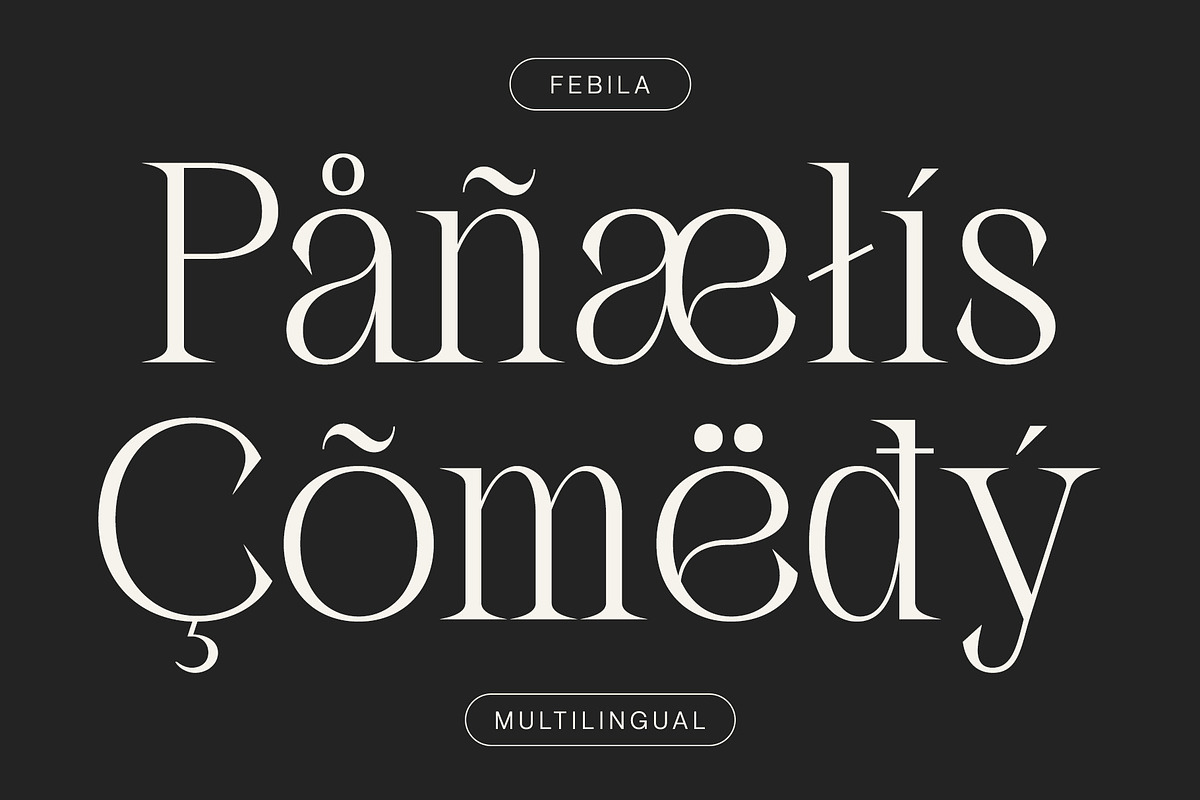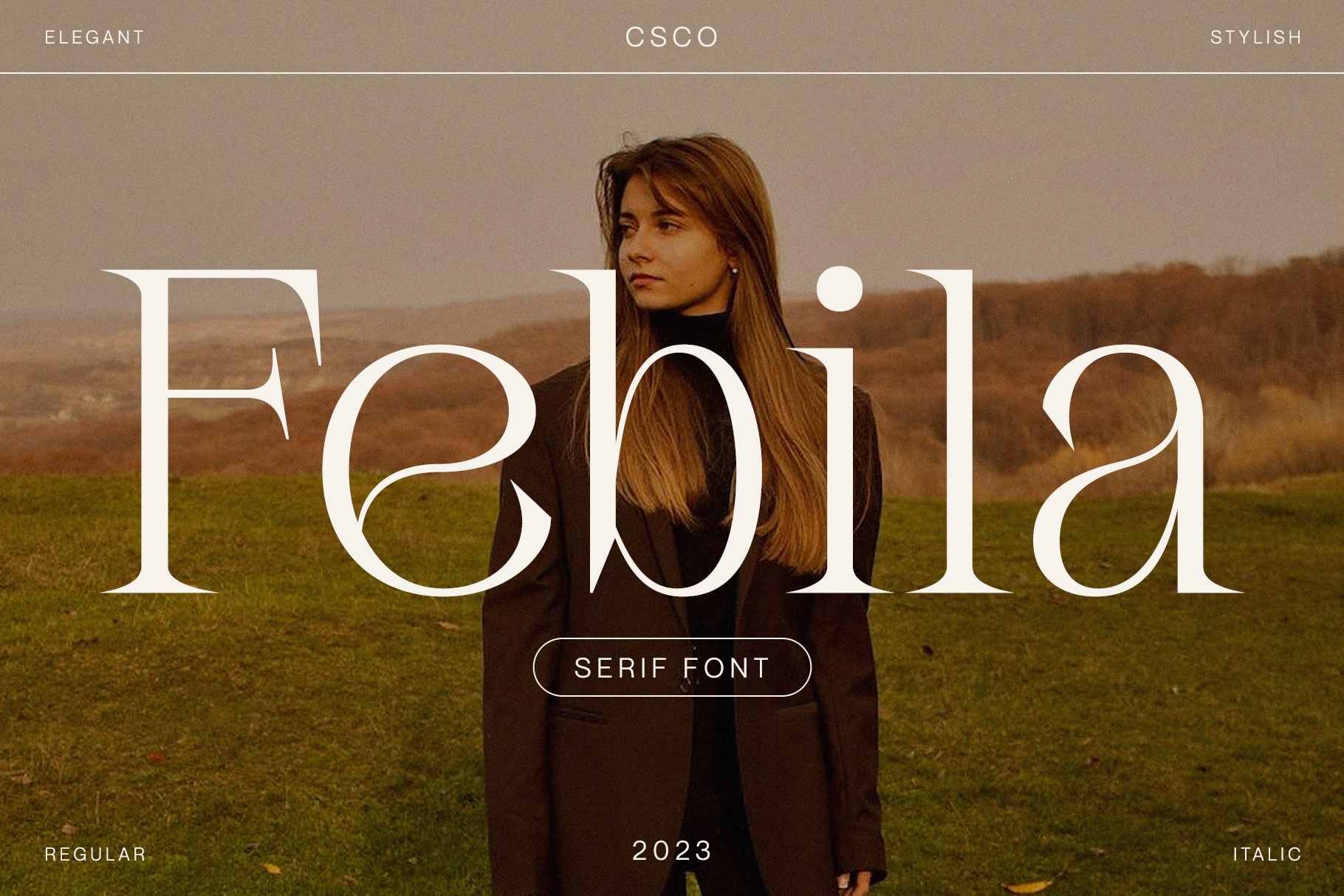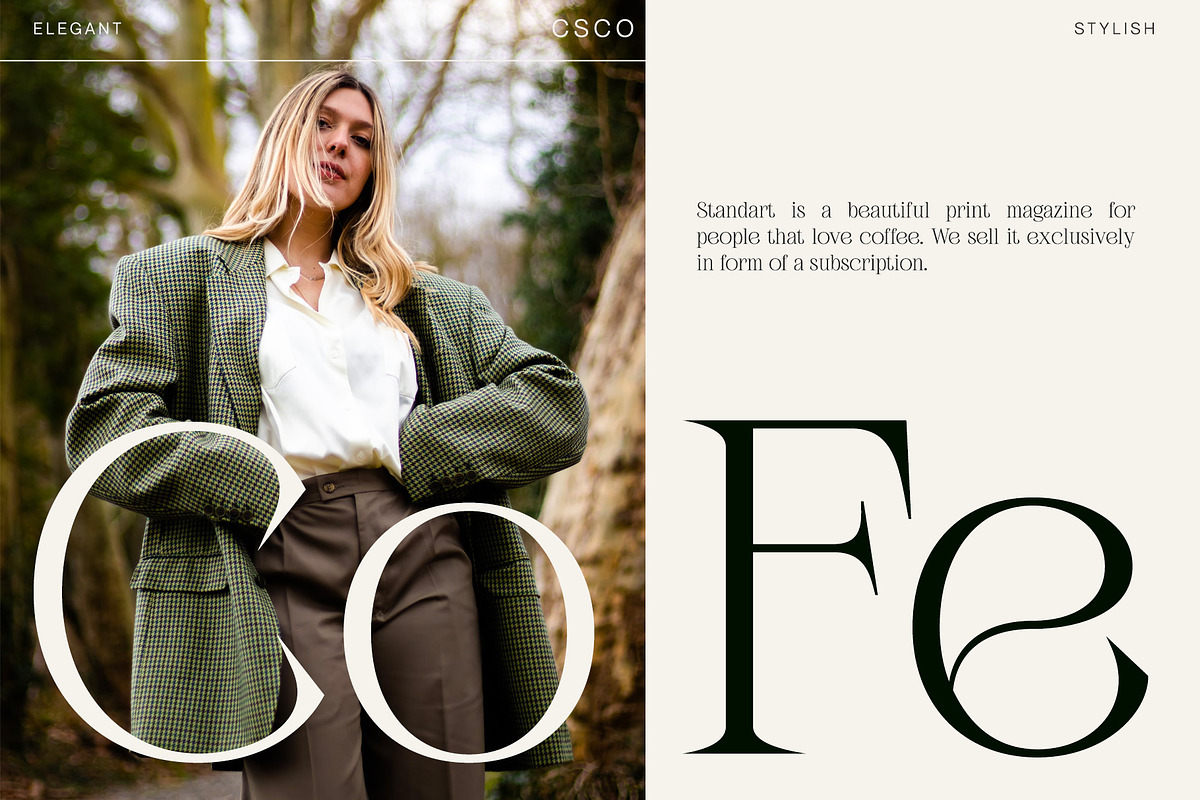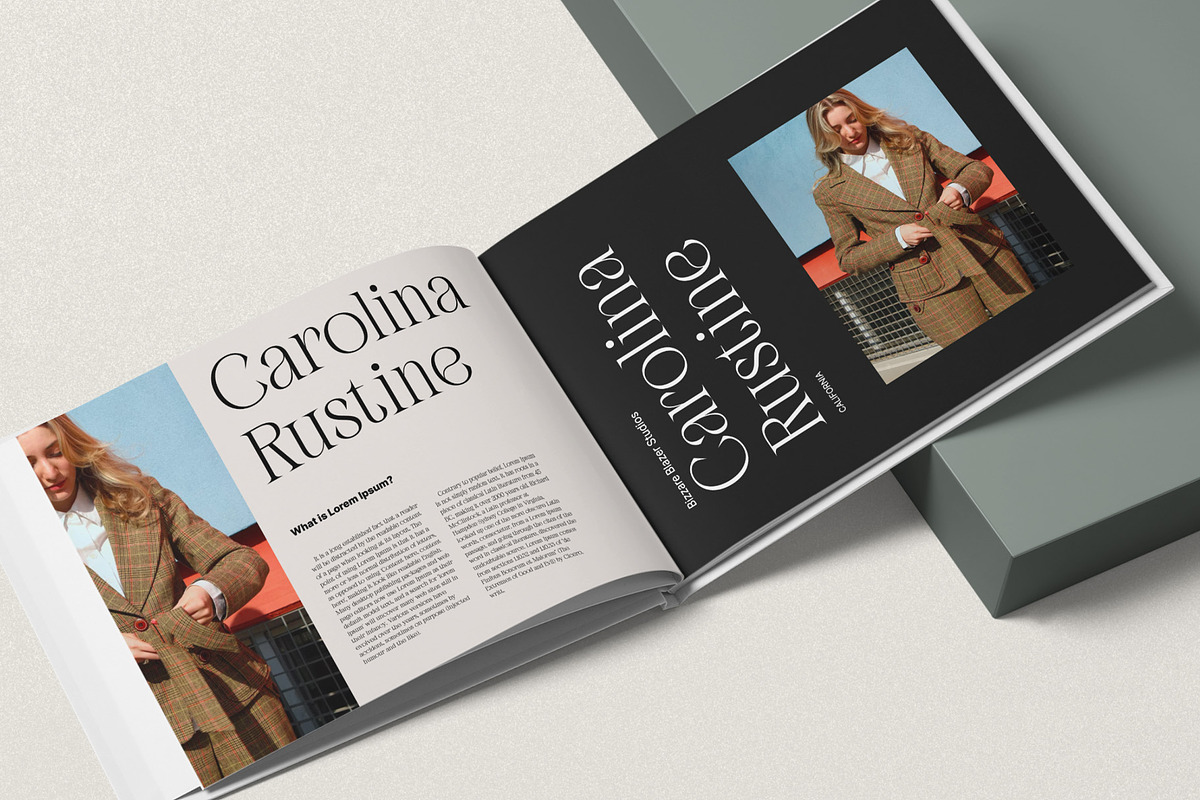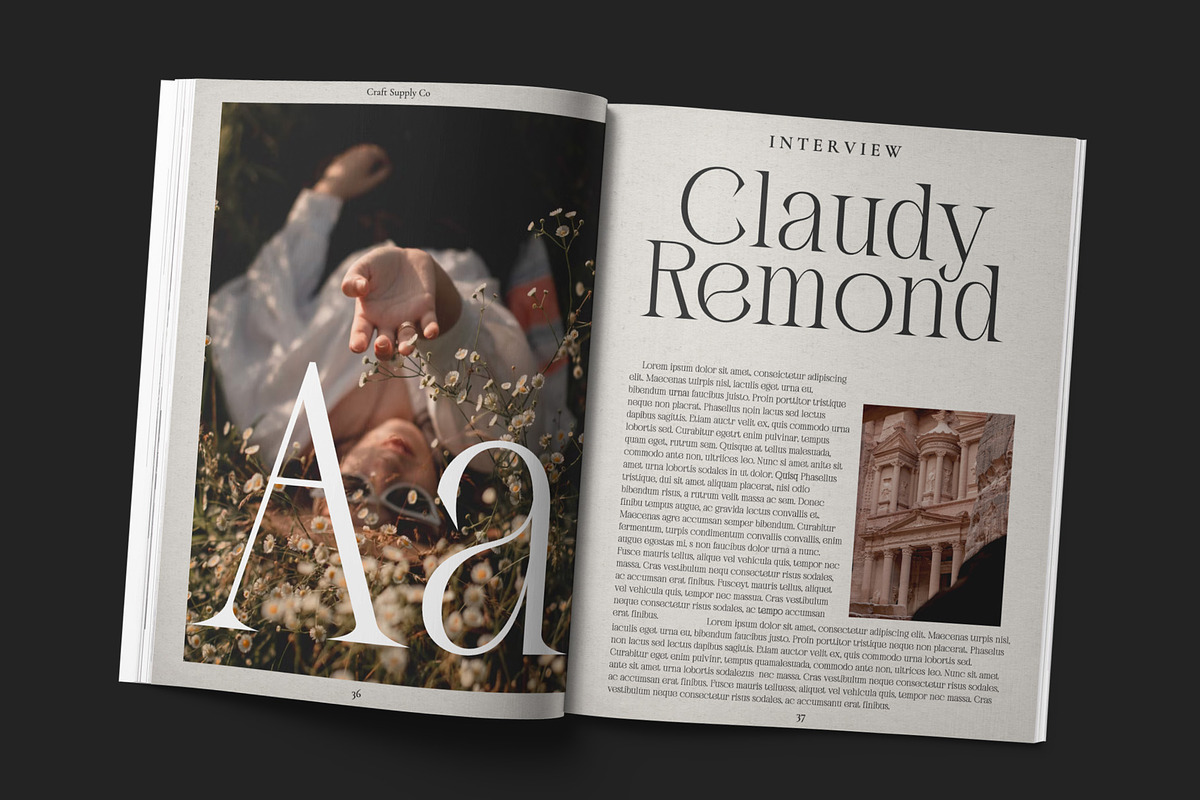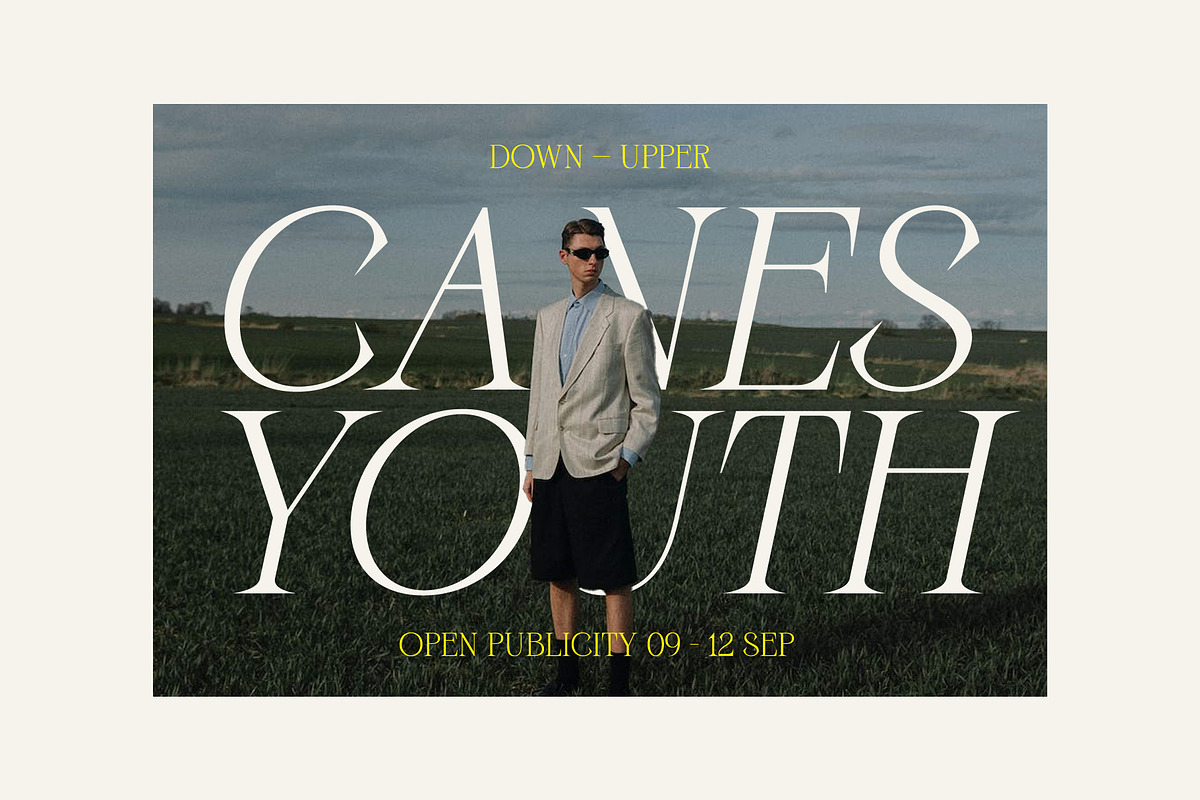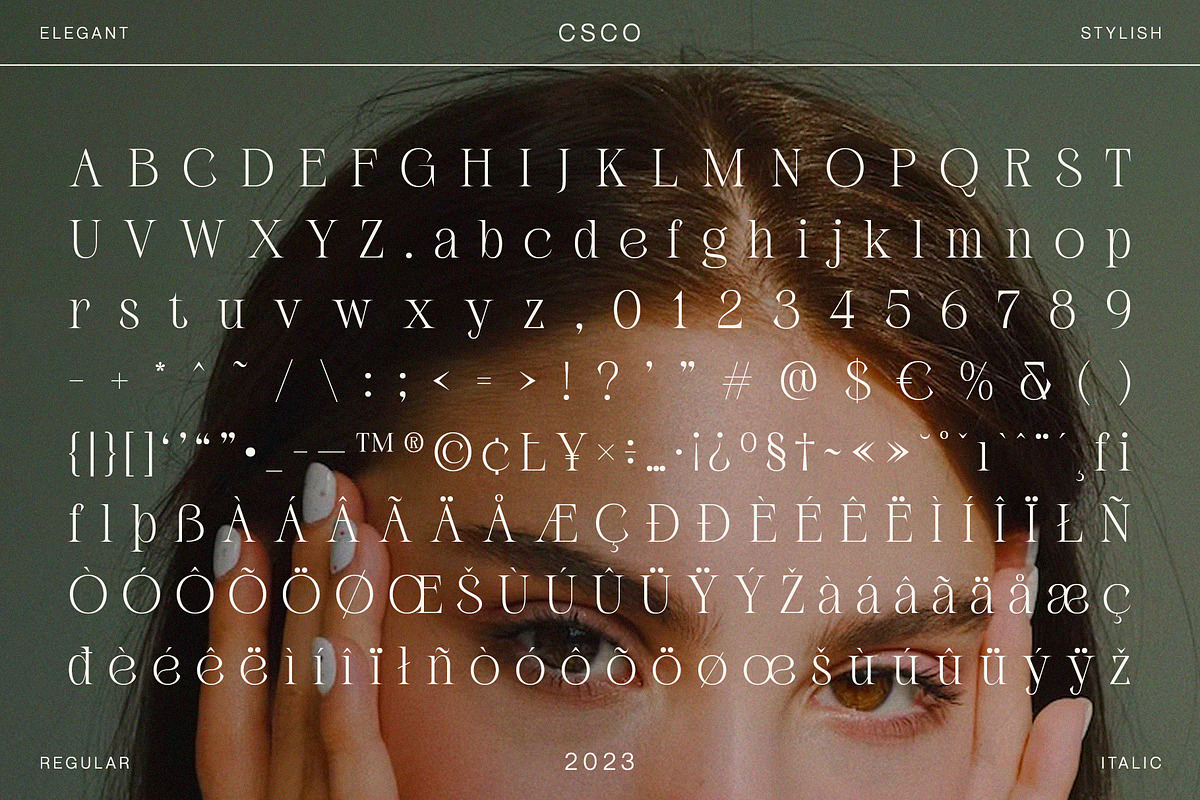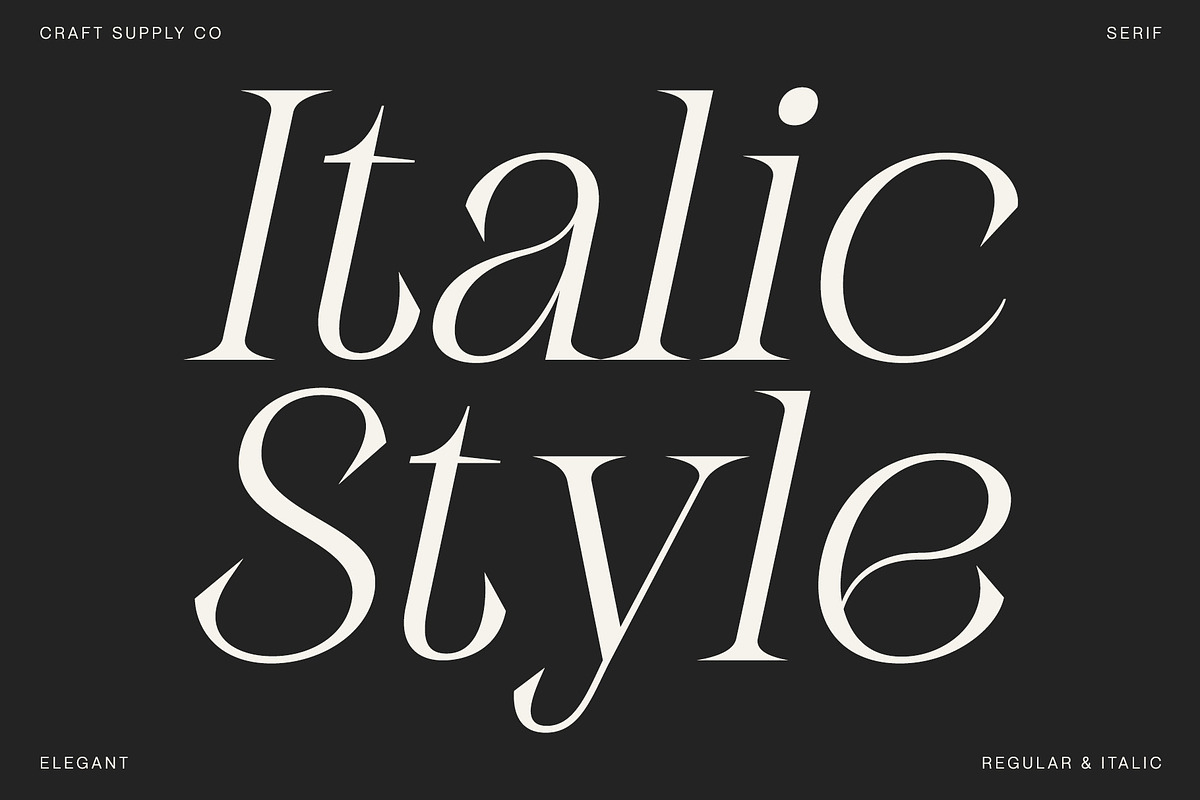
Febila - Elegant Serif Font
Febila - Elegant Serif Font is a typeface that exudes timeless sophistication and luxurious vibes, tailor-made for captivating and opulent display purposes. With its gracefully crafted serifs and impeccable letterforms, Febila embodies the epitome of refined typography.
This font is the embodiment of elegance, designed for projects that demand a touch of luxury and exclusivity. Whether you're crafting high-end branding materials, event invitations, or editorial layouts, Febila effortlessly elevates your work with an air of timeless beauty. Its attention to detail and meticulously balanced design make it the perfect choice for those seeking to convey an aura of grace and prestige.
Febila is your go-to font when you want to make a bold statement with an unmistakable touch of luxury and sophistication. Choose Febila to ensure your display materials radiate a sense of opulence and elegance, leaving an indelible mark of class and refinement.